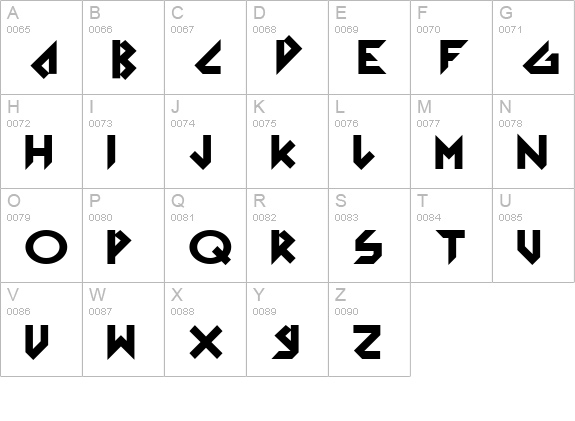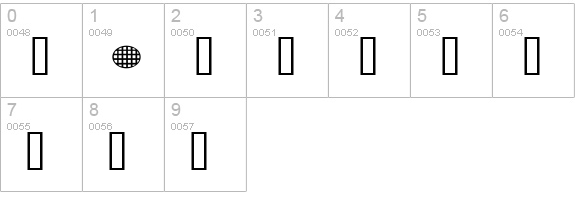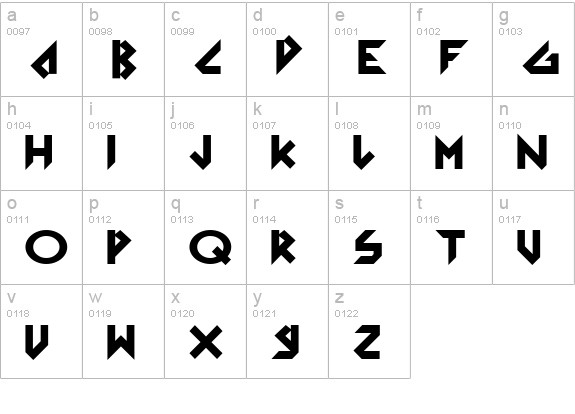
Arkanoid Solid Font Details
Arkanoid Solid font is a modern and stylish typeface that is perfect for adding a bold and eye-catching touch to your designs. Its geometric and sleek design makes it ideal for logos, headlines, posters, and more. This versatile font exudes a sense of strength and sophistication, making it a great choice for a wide range of projects. The best part? Arkanoid Solid font is available for free download at FontsMarket.com. Whether you're a designer looking to add a unique flair to your work or a business owner in need of a standout font for your branding, Arkanoid Solid is sure to impress. Don't miss out on this fantastic opportunity to enhance your designs with this fantastic font. Download it today and let your creativity shine!